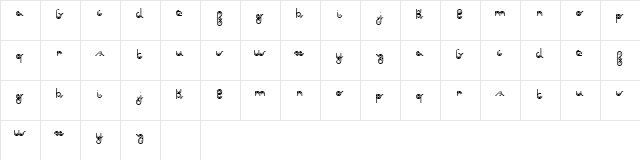
again Regular Free Font
again Regular
Foundry: dker
Designer: dker
Design Context for again
again is a composed and adaptable typeface that performs quietly and consistently across a wide range of design contexts.